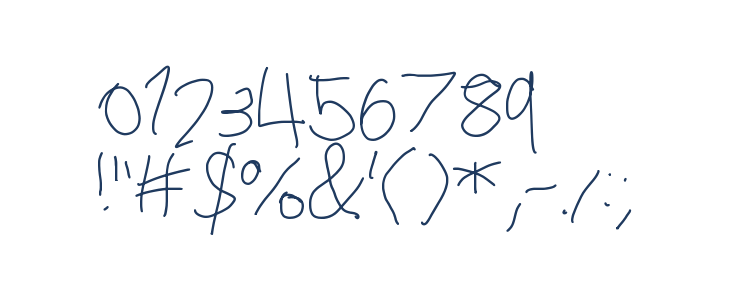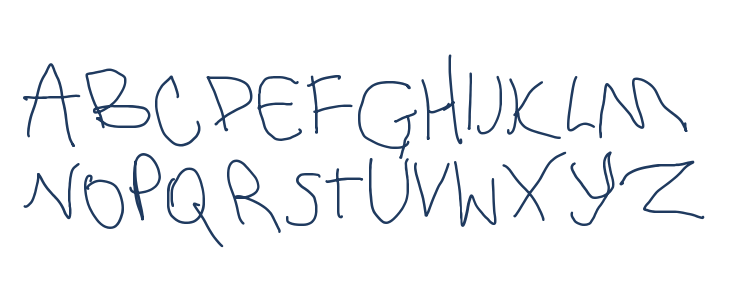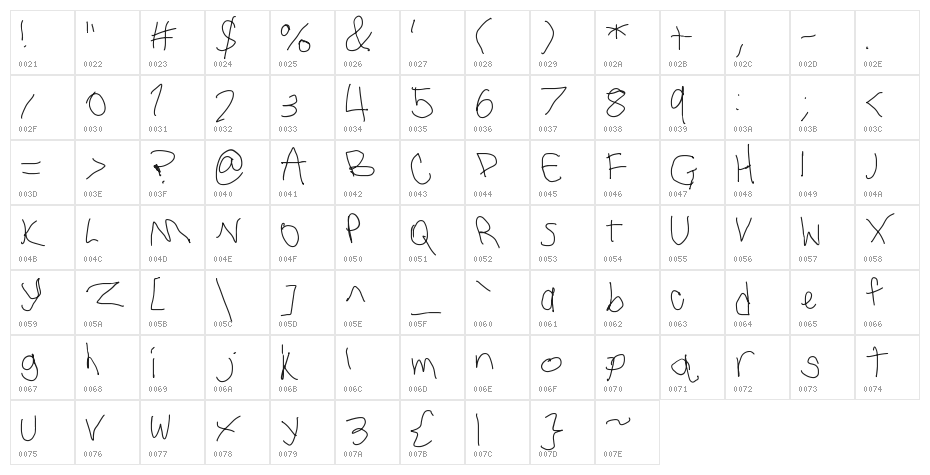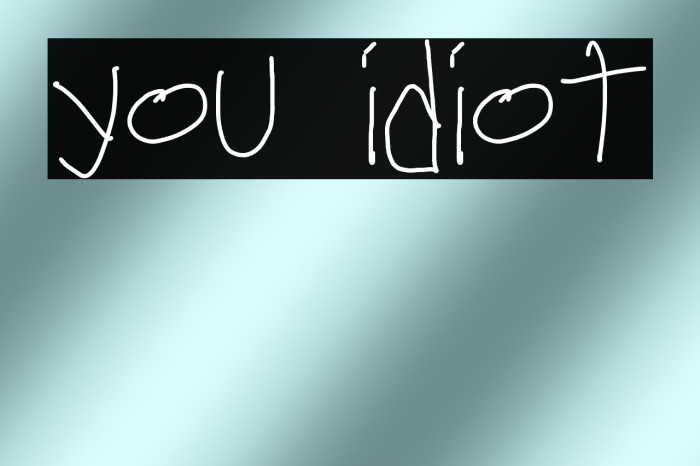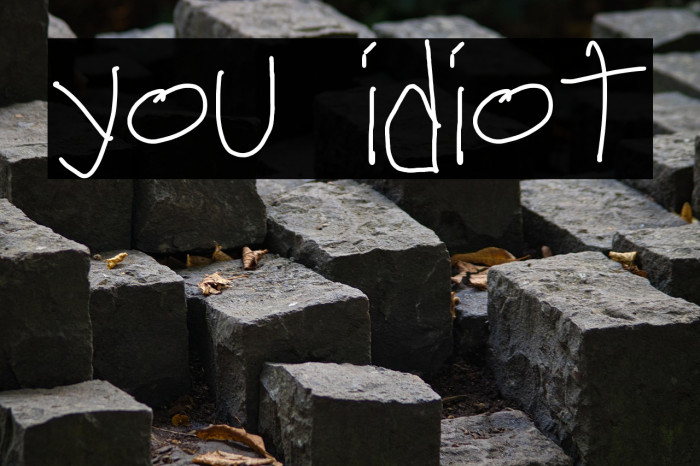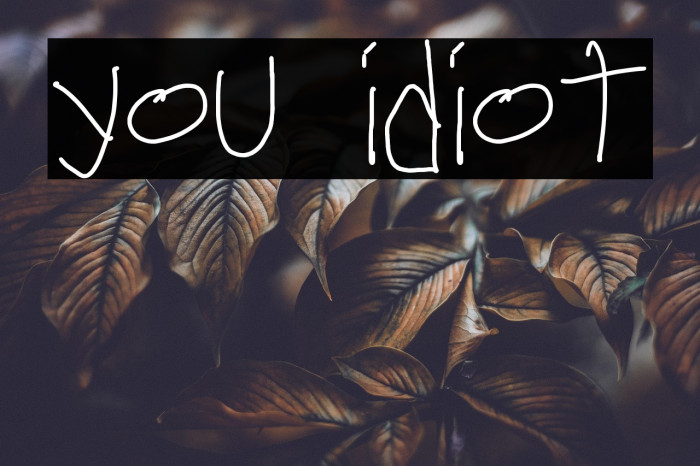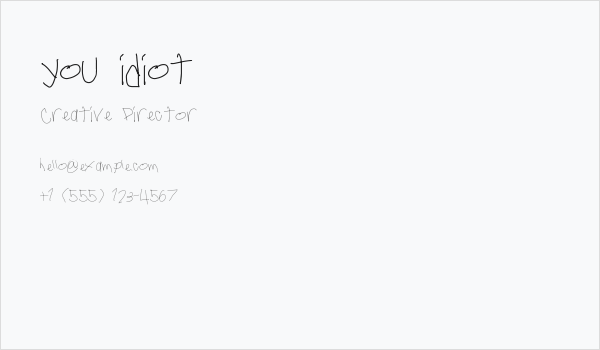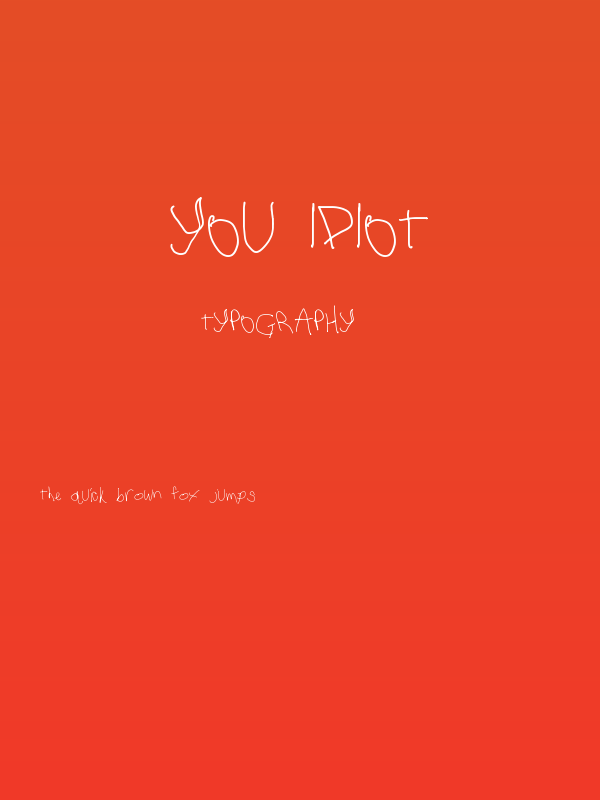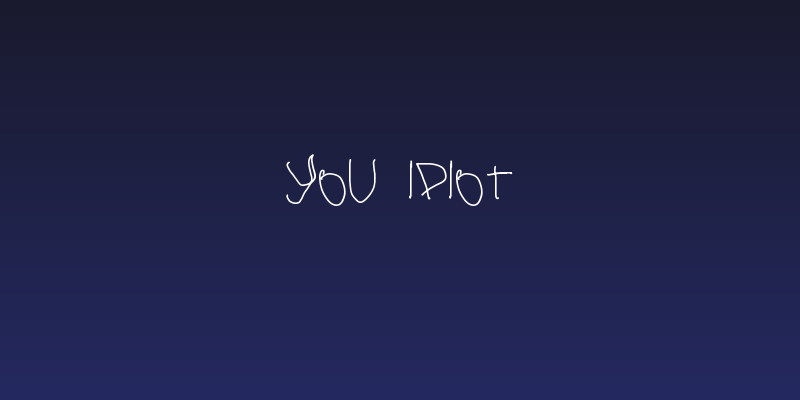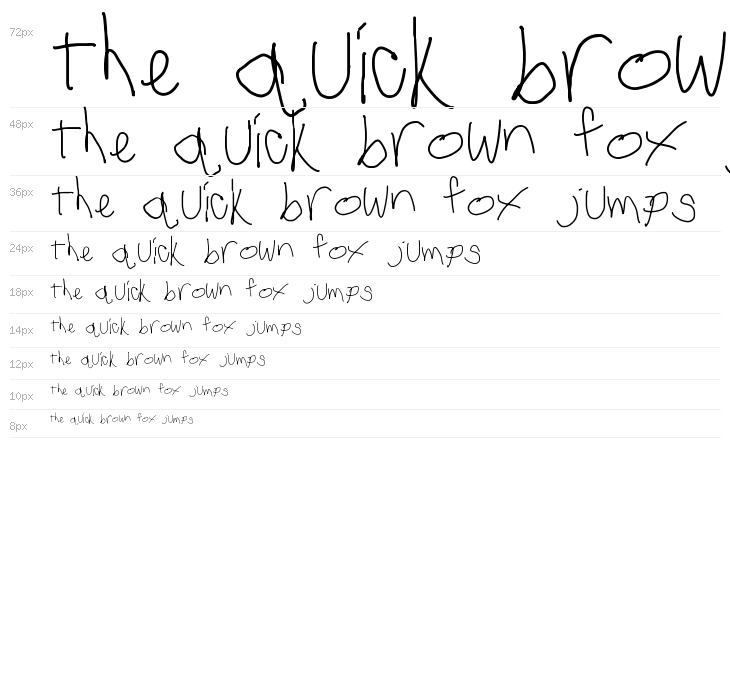
you idiot Font
you idiot Description
A casual, playful handwritten font with irregular, uneven strokes and a loose, informal appearance. The characters vary in size and alignment, giving it an authentic, spontaneous feel.
| Overall Style | Casual, Playful, Informal |
| Use Case | Creative projects, Informal notes, Posters |
| Proposed Projects | Children's books, informal invitations, greeting cards, creative posters, personal notes. |